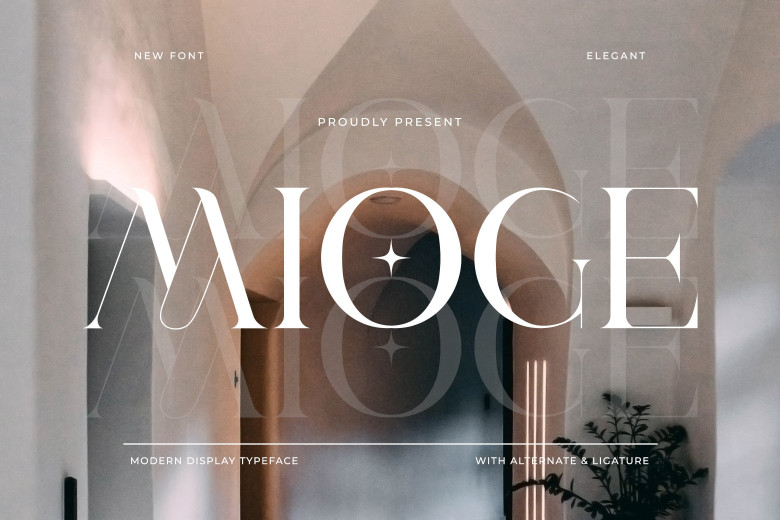
Mioge Font
This is an modern display font that has been elegantly crafted. It can easily be matched to an incredible large set of projects, where it is best used to feel exquisite, yet not too subtle maximum versatility.
Mioge Display Font